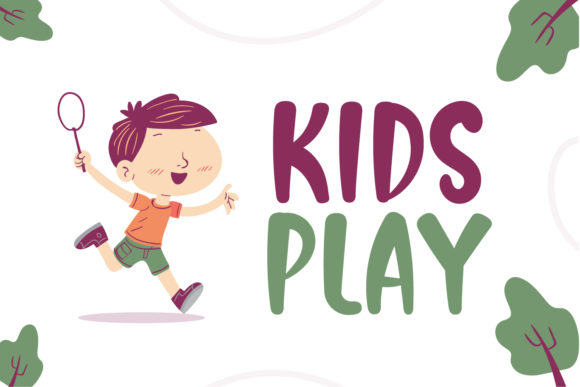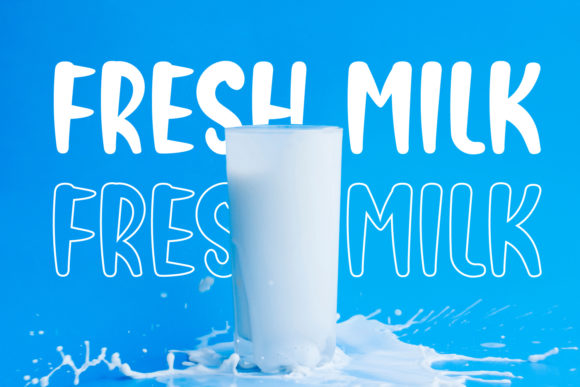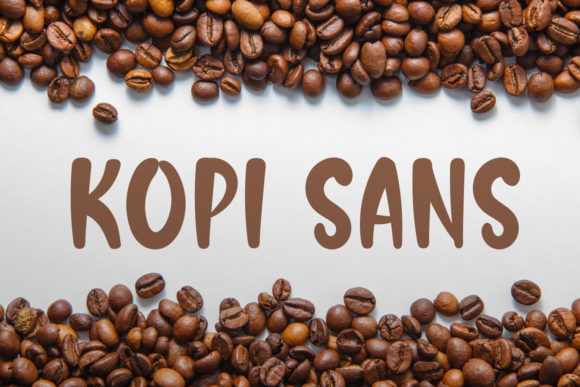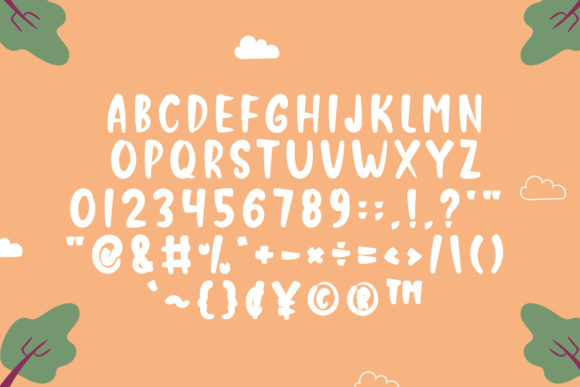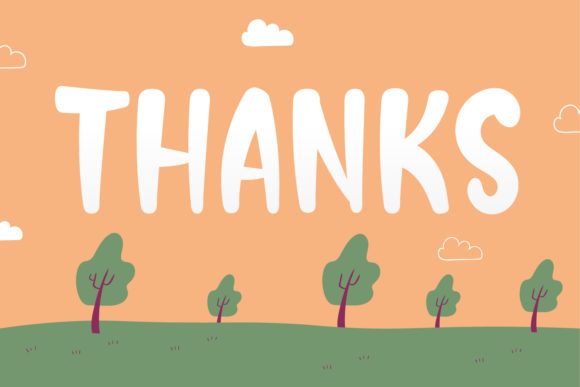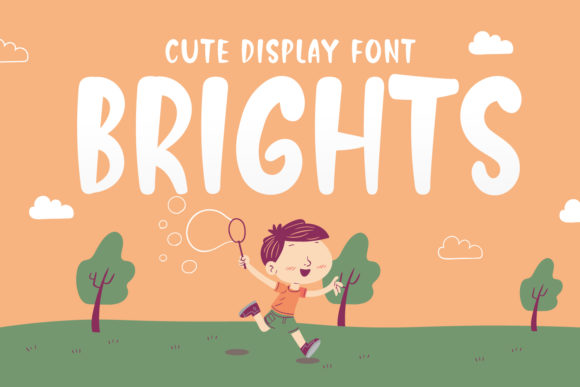
Introducing Brights Font: The Perfect Addition to Your Creative Arsenal
Are you tired of using the same old fonts in your designs? Look no further than Brights Font, a fun and cute display font that’s sure to add a touch of personality to your creative projects. With its casual charm and down-to-earth feel, Brights Font is the perfect choice for designers and crafters looking to add some whimsy to their work.
The Characteristics of Brights Font
So, what makes Brights Font so special? For starters, its casual charm makes it look very approachable and easy to read. The font’s playful curves and lines give it a friendly feel that’s perfect for designs that need to connect with their audience on a personal level. Additionally, Brights Font is a display font, which means it’s designed to make a statement. Whether you’re using it for a title, a heading, or a call-to-action, Brights Font is sure to grab attention and draw the eye.
The Benefits of Using Brights Font
So, why should you add Brights Font to your creative arsenal? For one, its versatility makes it perfect for a wide range of design projects. From branding and advertising to packaging and signage, Brights Font can be used in just about any context where you need to make a bold statement. Additionally, the font’s ease of use makes it a great choice for designers of all skill levels. Whether you’re a seasoned pro or just starting out, Brights Font is easy to install and use in your designs.
Brights Font is a great choice for designers and crafters who want to add a personal touch to their work. Whether you’re creating custom stationery, crafting handmade cards, or designing unique jewelry, Brights Font is the perfect way to add some personality to your creations. The font’s playful feel makes it perfect for designs that need to stand out from the crowd, and its ease of use makes it a great choice for crafters who may not have a lot of design experience.
Tips and Tricks for Getting the Most Out of Brights Font
To get the most out of Brights Font, try pairing it with other fonts that complement its playful feel. For example, you could pair Brights Font with a clean, sans-serif font to create a bold and eye-catching design. Alternatively, you could use Brights Font on its own, experimenting with different colors and textures to add depth and interest to your design. Whatever approach you choose, Brights Font is sure to add a touch of personality to your designs and help them stand out from the crowd.
In conclusion, Brights Font is a fun and cute display font that’s perfect for designers and crafters looking to add some personality to their work. With its casual charm and down-to-earth feel, Brights Font is the perfect choice for designs that need to connect with their audience on a personal level. Whether you’re creating custom stationery, crafting handmade cards, or designing unique jewelry, Brights Font is the perfect addition to your creative arsenal. So why wait? Download Brights Font today and start adding a touch of whimsy to your designs!